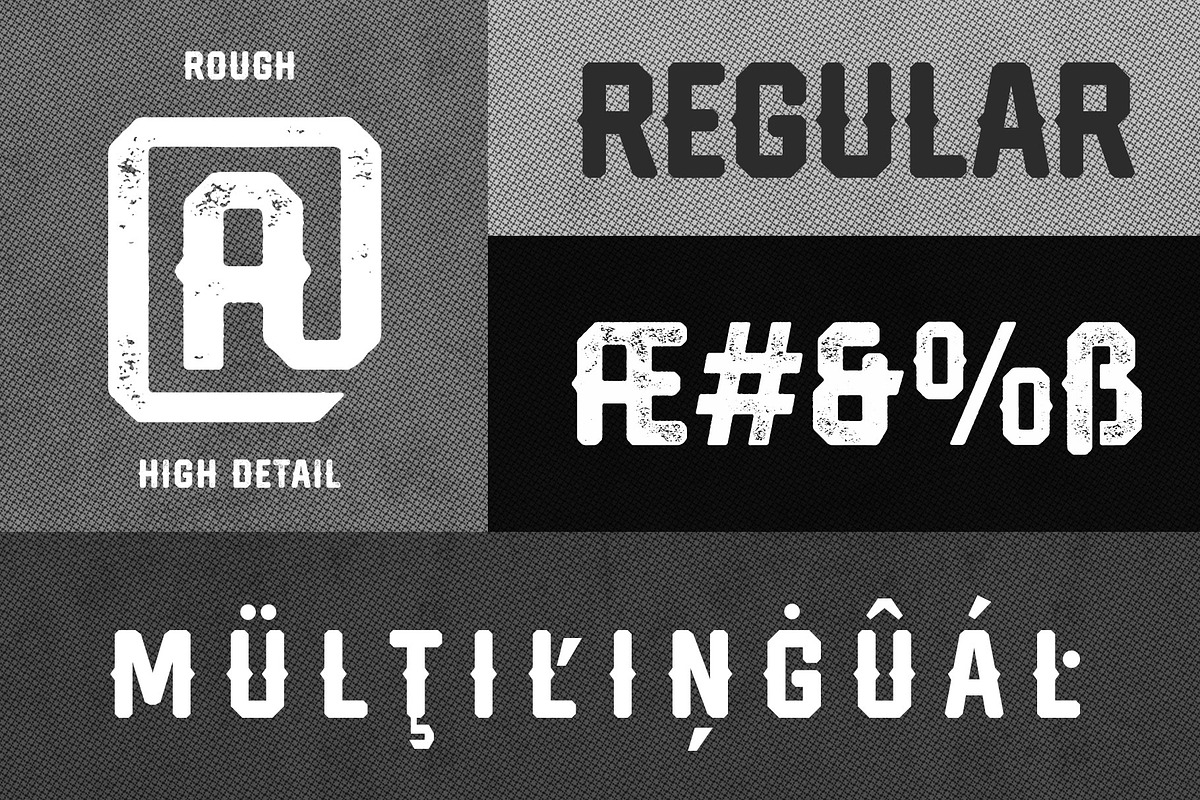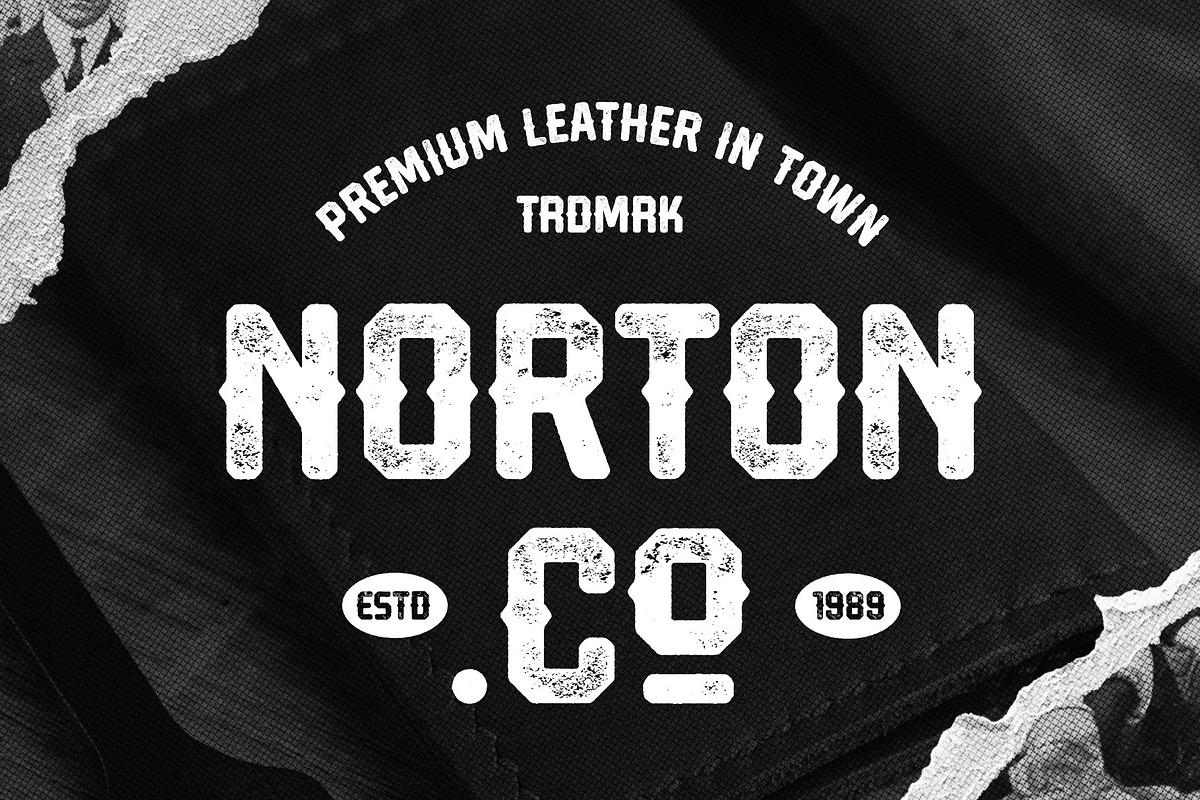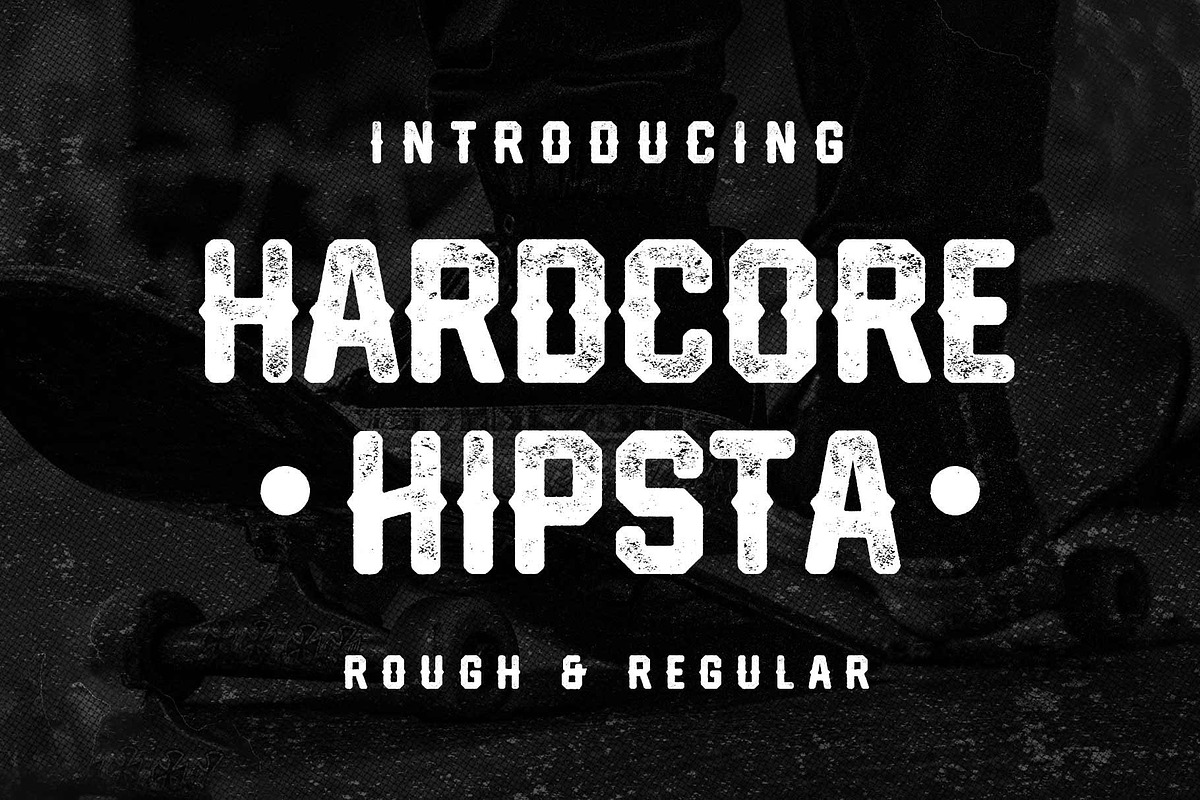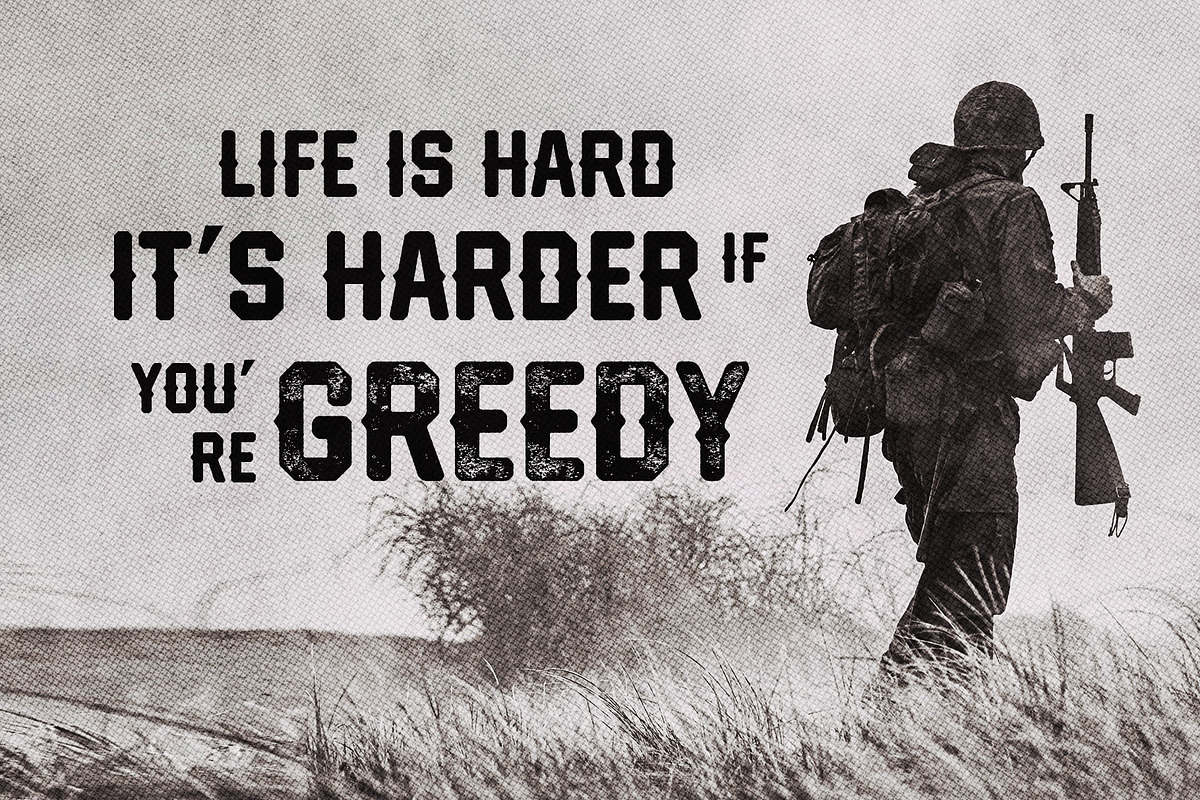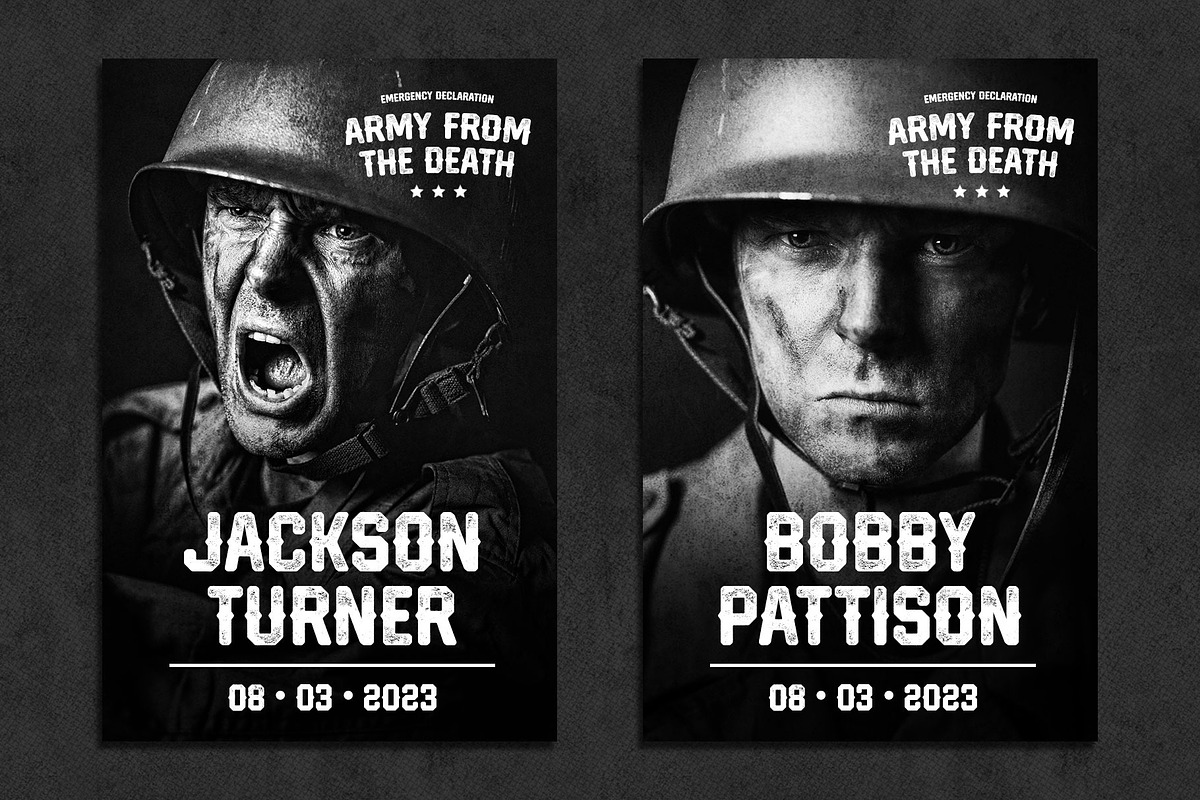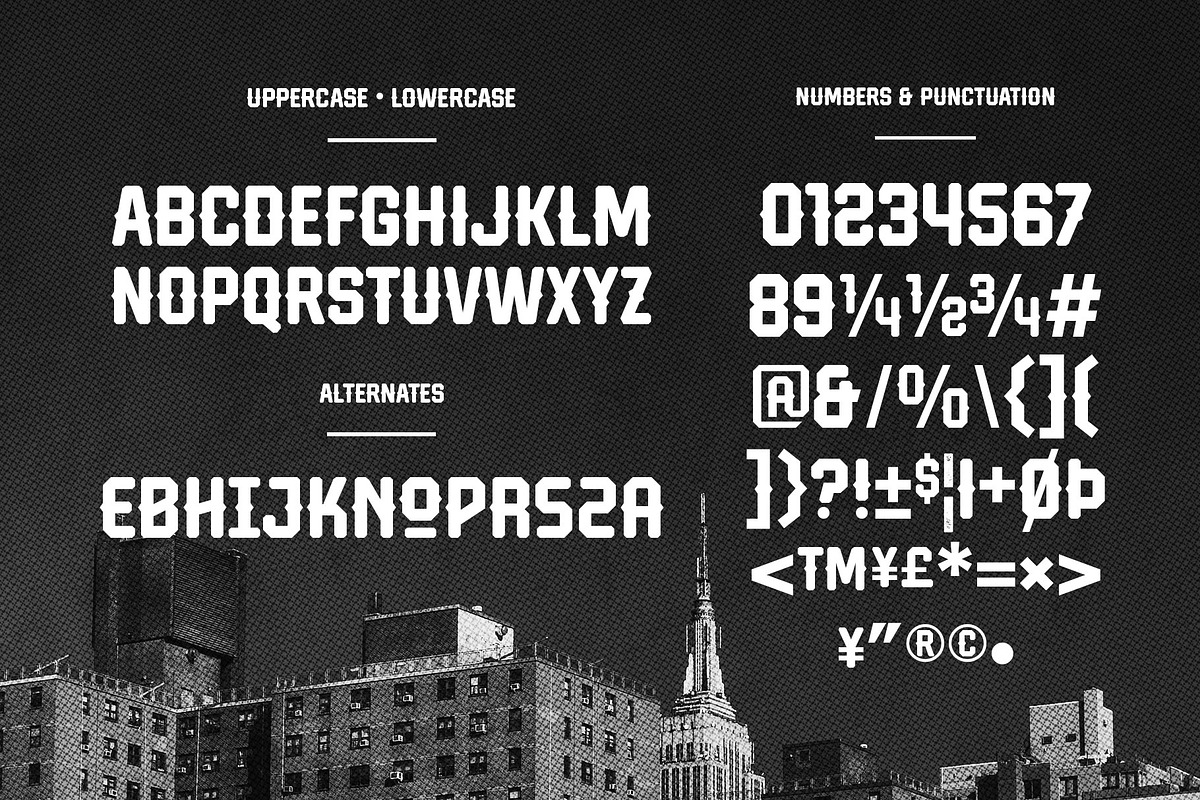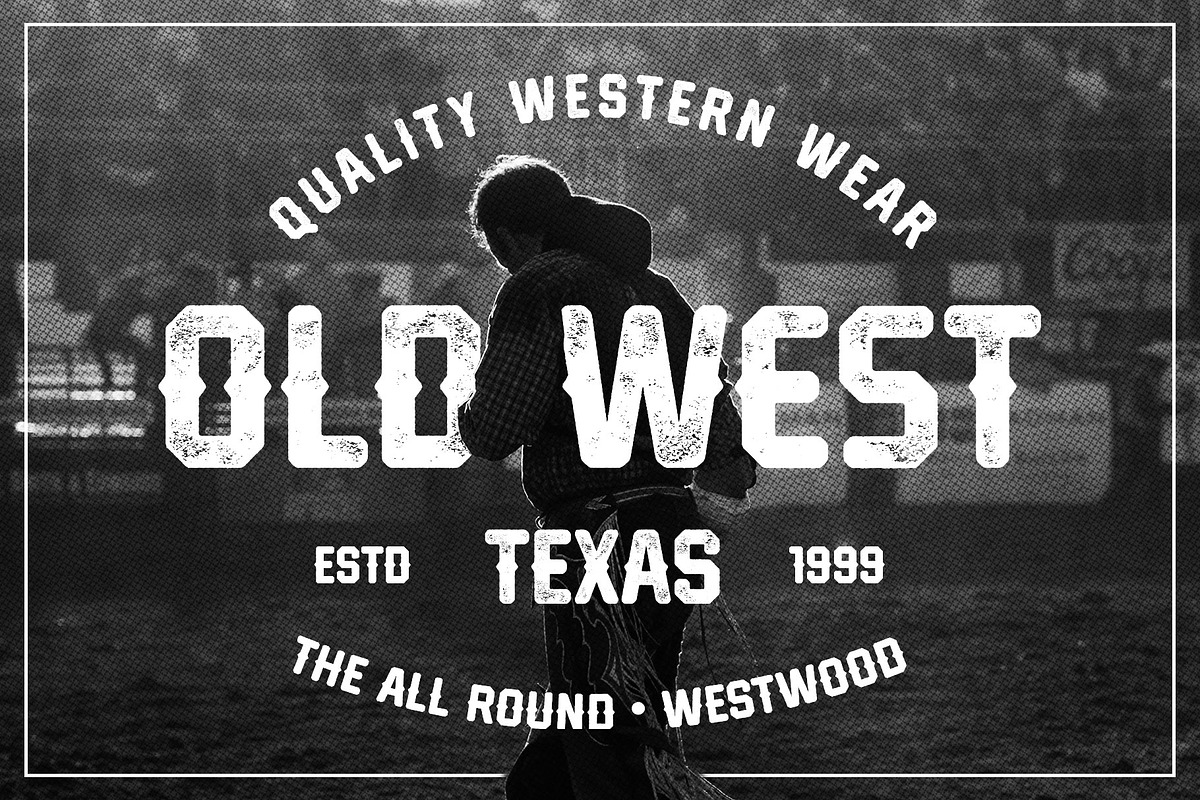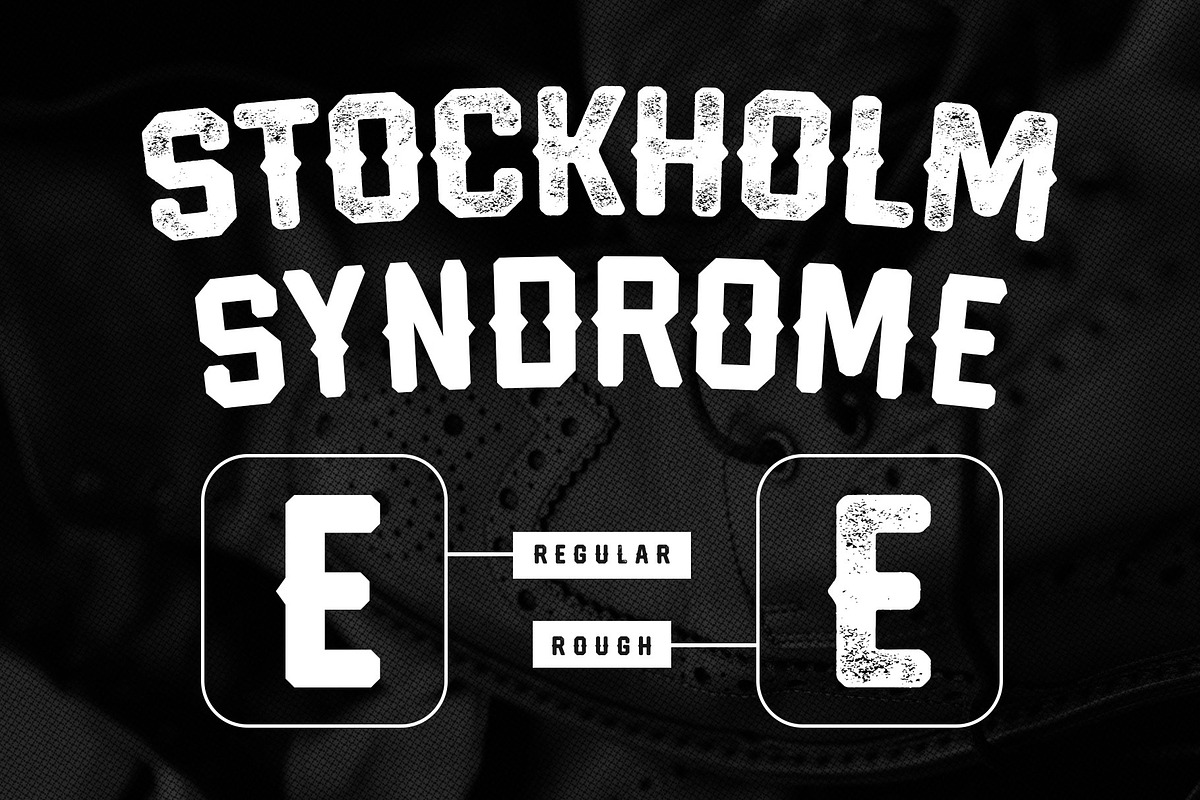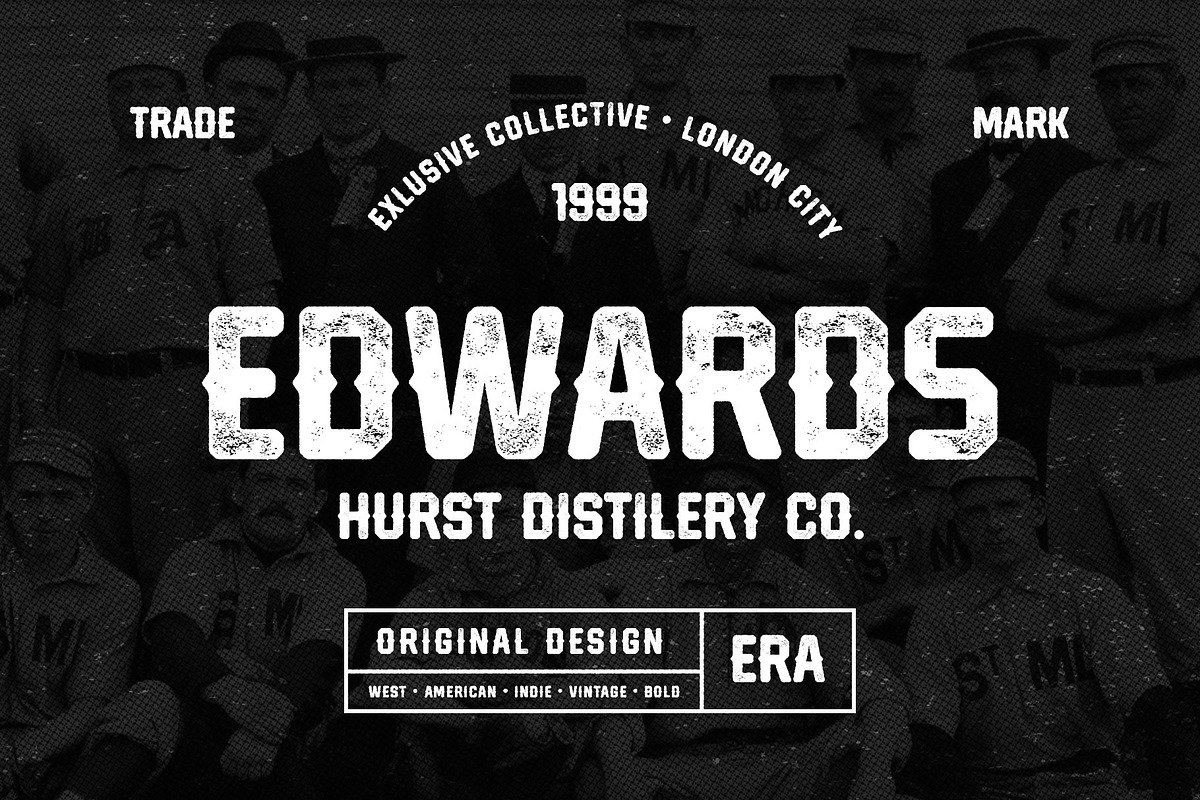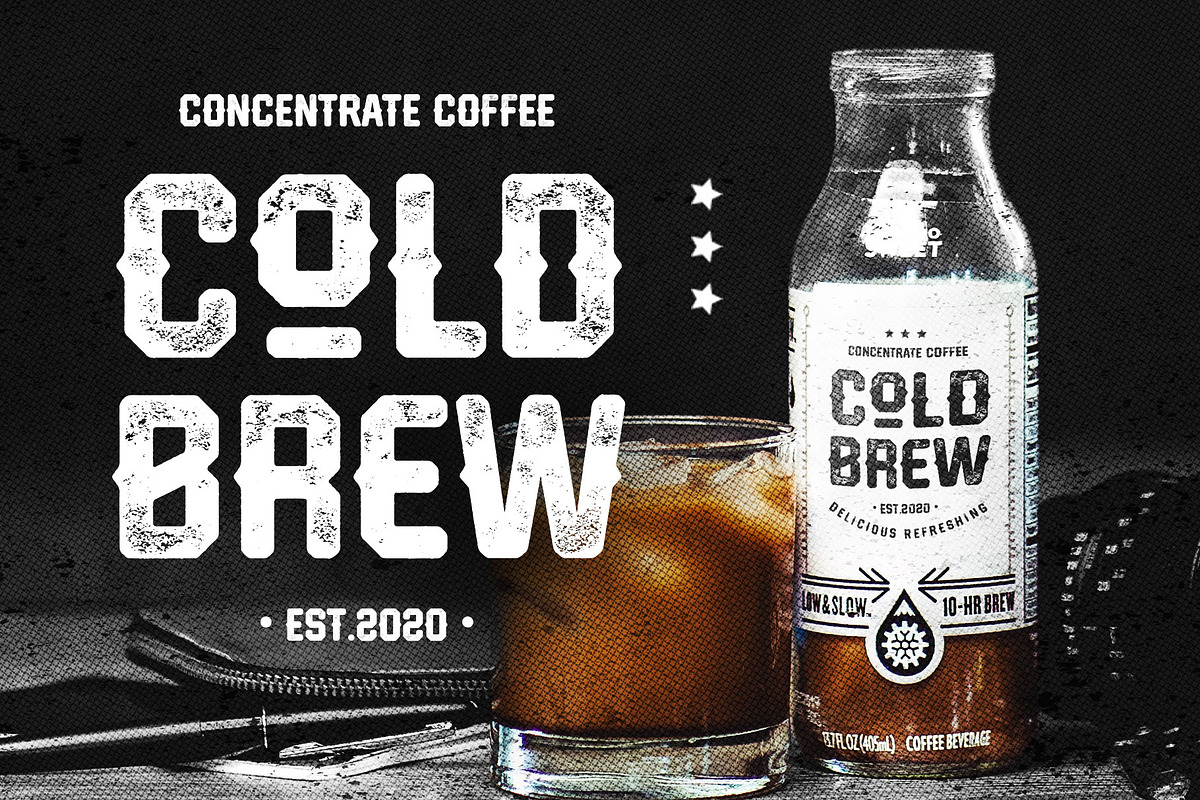
Hardcore Hipsta
Hardcore Hipsta is a vintage display font. Comes in regular and rough styles which are perfect for your next project. It's strong, bold, tough, and has confident looks.
Designed with block-based, curveless, and sharp edges that give a brave approach. A great choice to apply to many purposes such as sports, posters, jerseys, labels, storefronts, coffee, sticker, logos, badges, headlines, and many more!
Hardcore Hipsta is an all-caps font that consists of uppercase, extra alternate characters, and multilingual support.